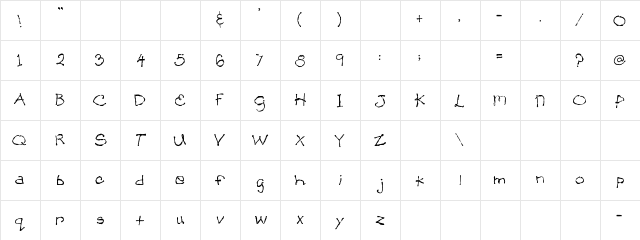
SBC Distressed Well Said Font Preview
Design Context for SBC Distressed Well Said Typeface
SBC Distressed Well Said embraces imperfection — its rough, textured character adds raw authenticity to designs that want to feel lived-in and unconventional.
Suited to punk-influenced zines, underground music branding, streetwear, and raw, anti-corporate design.
Pro Tip: Pair SBC Distressed Well Said with intentionally raw or lo-fi design elements. Fighting against it with overly polished surroundings will undermine its personality.